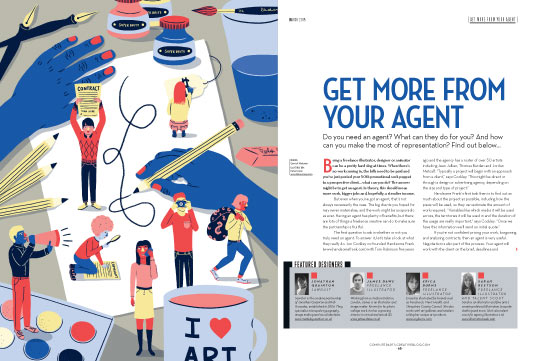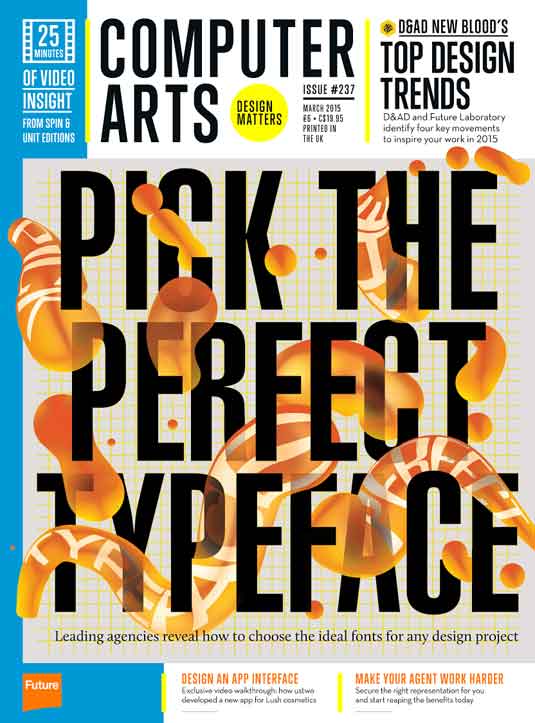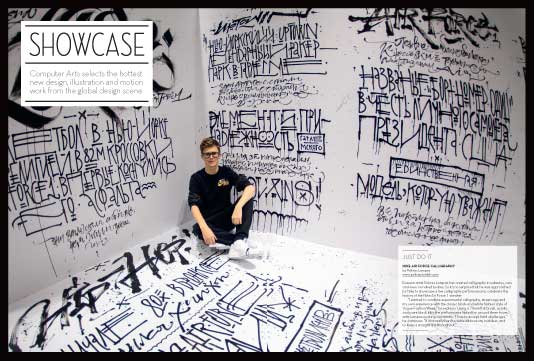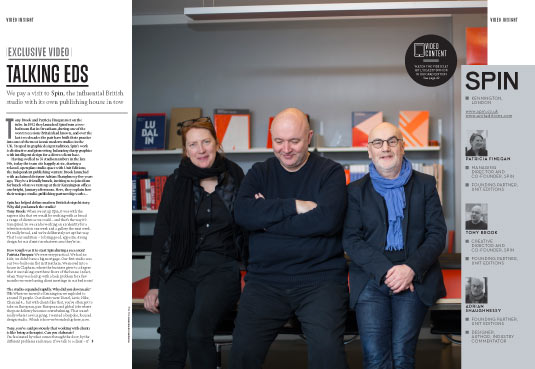
Discover how to pick the perfect typeface in the new Computer Arts
CA 237 is on sale now! Nail the art of typeface selection, plus four key design trends for 2015 and more.
Typeface selection is a true artform that goes well beyond simple aesthetics. Tone of voice, emphasis and cultural associations are all essential considerations, as are factors like usage format, language support and licensing.
Get it wrong and you'll soon know about it – so how can you ensure you get it right every time?
Computer Arts issue 237 gets to the heart of how four world-class studios – Pentagram, Studio Dumbar (who crafted this issue's bold cover illustration), Frost* Design and Typotheque – tackle this daily challenge as part of their workflow, spanning everything from branding to editorial design and beyond.
Also inside the issue, D&AD and Future Laboratory identify four key consumer tends that are shaping society. Understanding these will help you tackle the next design brief you take on and could inspire some winning ideas.
Elsewhere, you'll find an in-depth feature on how to get more from your agent – from classic dos and don'ts when seeking representation, to contract and legal advice from a top IP lawyer – and, in the wake of January’s Charlie Hebdo tragedy, designer and writer Adrian Shaughnessy considers what creative freedom really means.
We also pay a visit to Tony Brook and Patricia Finnegan's pioneering design studio Spin, and while we're there go behind the scenes at Unit Editions – Brook and Adrian Shaughnessy's publishing venture, and iconic designer Paula Scher's "favourite indi publisher".
- Font management for studios – everything you need to know about font licensing to avoid an expensive lawsuit
- The design-related trends from CES set to change the face of the creative industries
- Meet Vienna-based designer and VJ Lukas Haider
- Behind the scenes on dn&co and Poke’s big branding for East London’s epic new creative space
- Ad agency Isobel, Aardman Animations and Scary Cat reveal how they produced a stunning, spinning, giant sculpture for a retail-related brief
- Design an app interface
- All the hottest new design, illustration and motion work from the global design scene